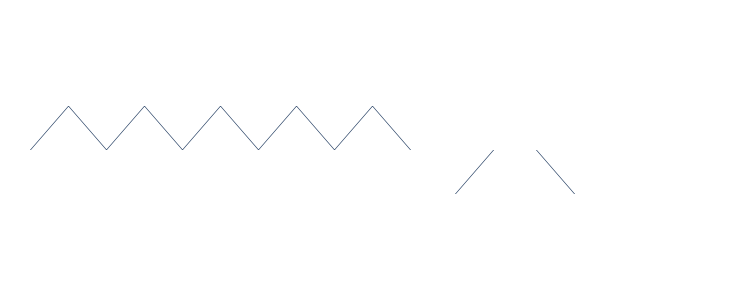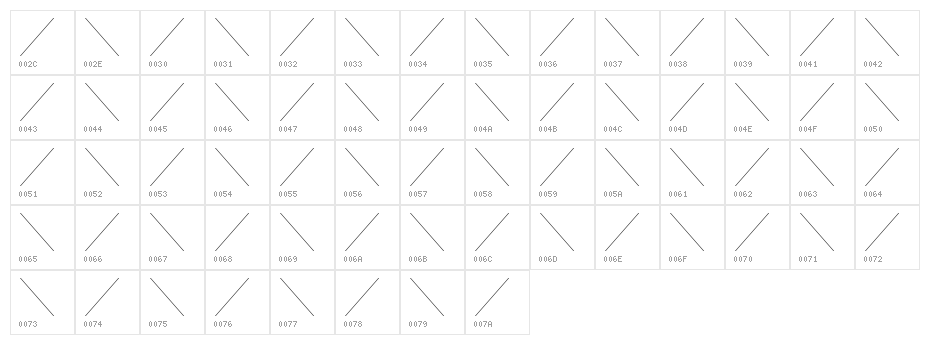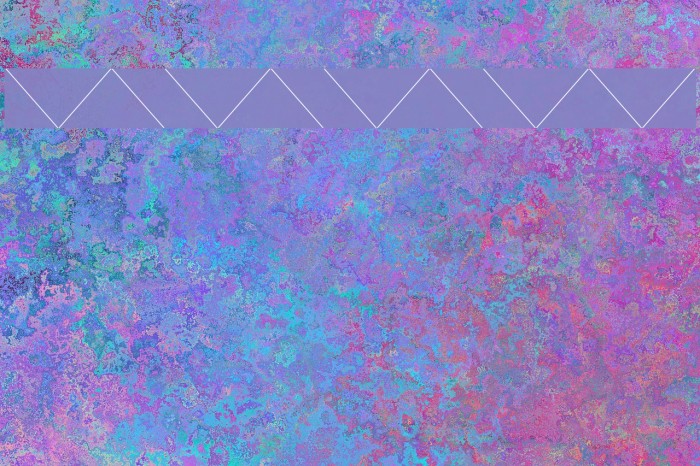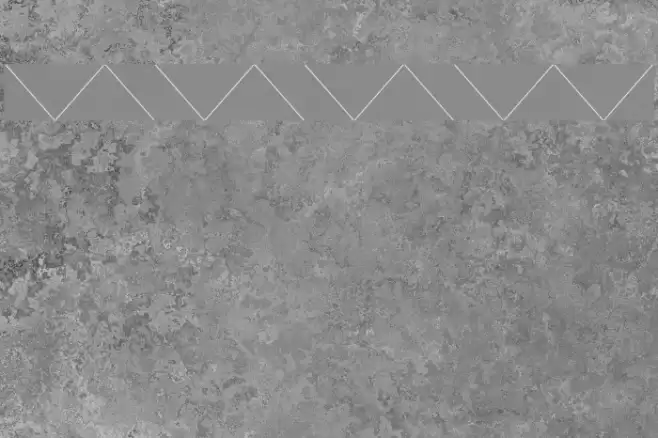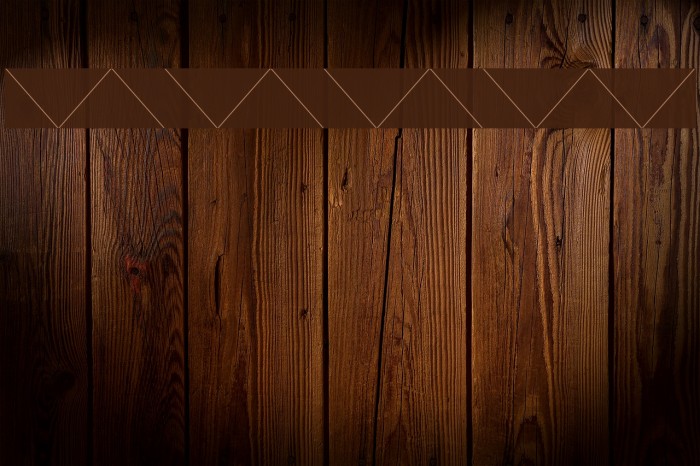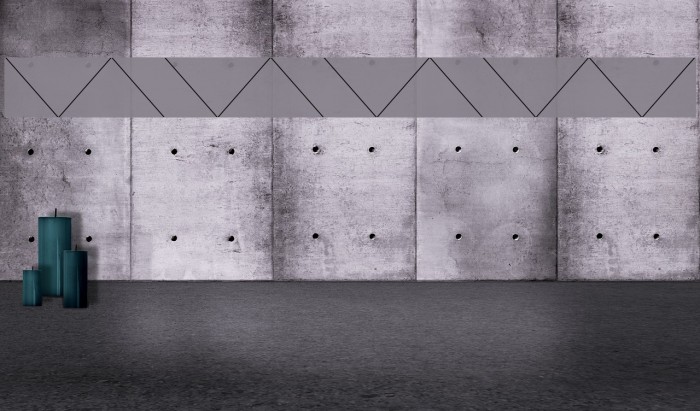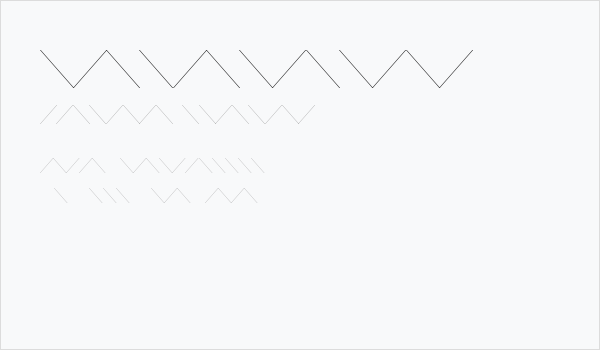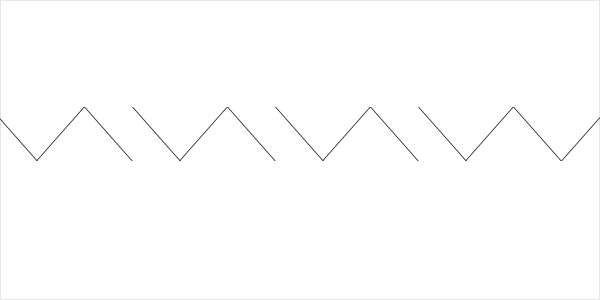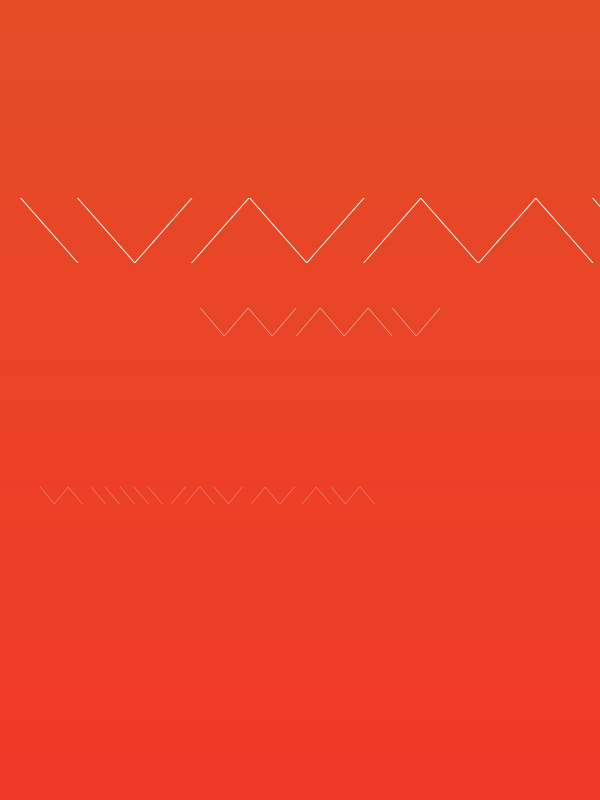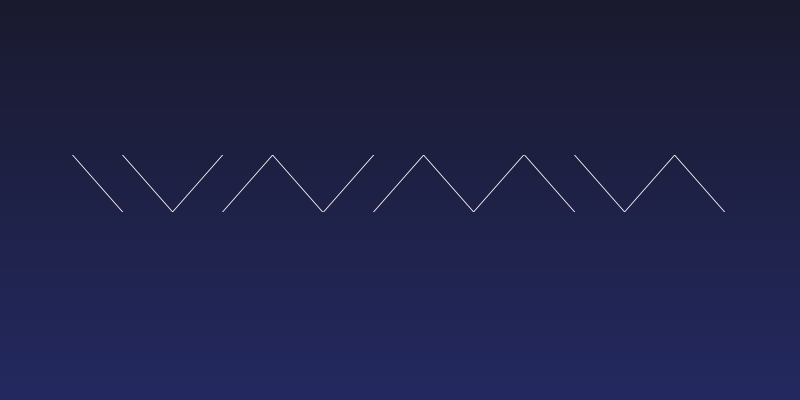
FractionsThin Font
FractionsThin Description
This image consists of repeated zigzag lines with consistent thin strokes, lacking any alphanumeric or typographic characters. There are no discernible letterforms, numerals, or punctuation marks present.